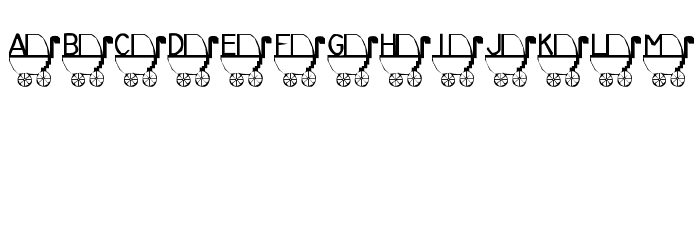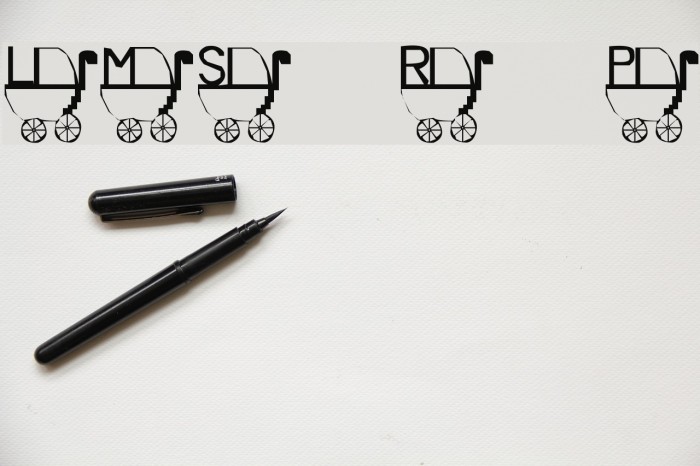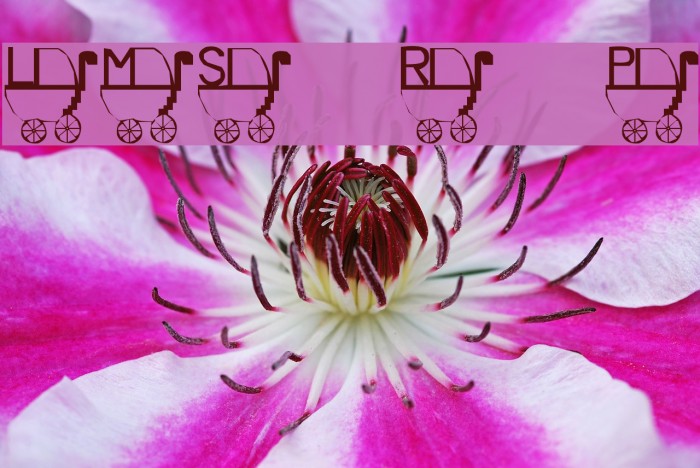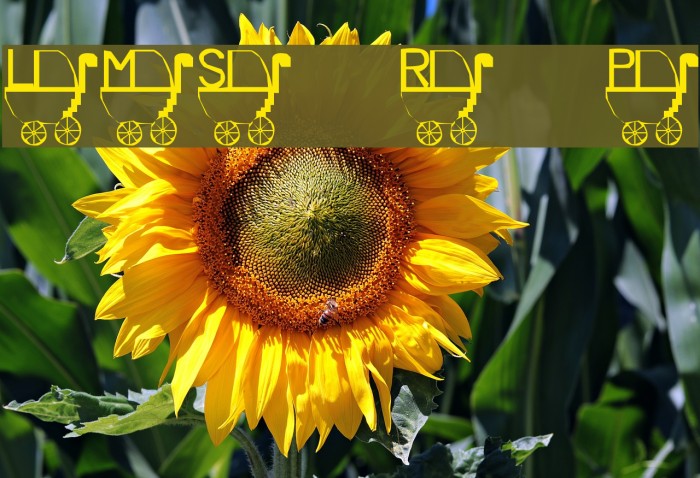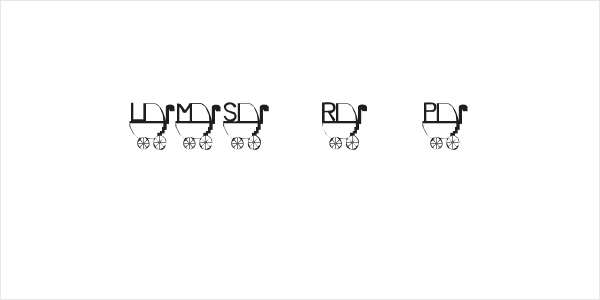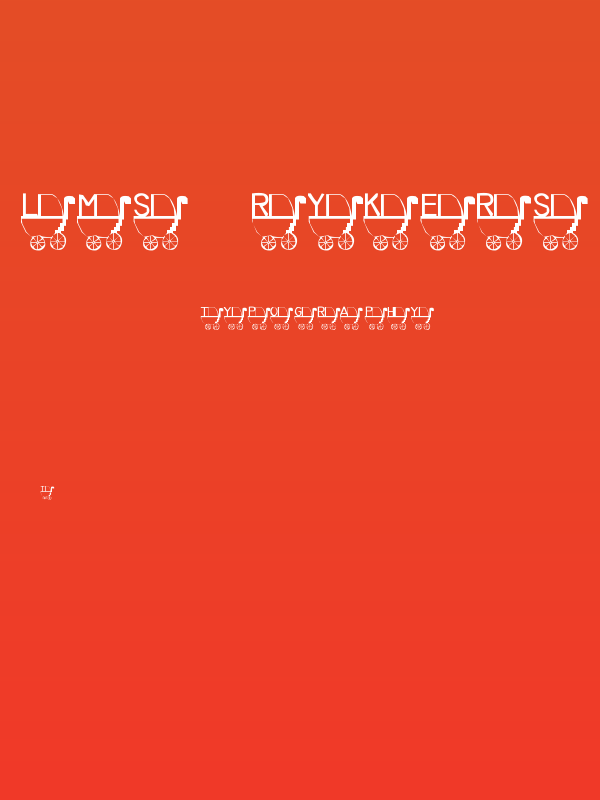
LMS Rykers Pram Font
LMS Rykers Pram Description
This playful and whimsical font features each letter integrated into a baby pram design, creating a unique and charming visual effect. The letters are bold and clear, with each character seamlessly forming part of the pram's structure. The wheels and handles of the pram add a decorative touch, making the font ideal for child-related themes. The consistent design across uppercase, lowercase, and numbers ensures a cohesive look. Special characters are also included, maintaining the pram motif, which adds to the font's versatility and appeal.
| Proposed Projects | Ideal for children's books, nursery decor, baby shower invitations, and playful branding projects. |